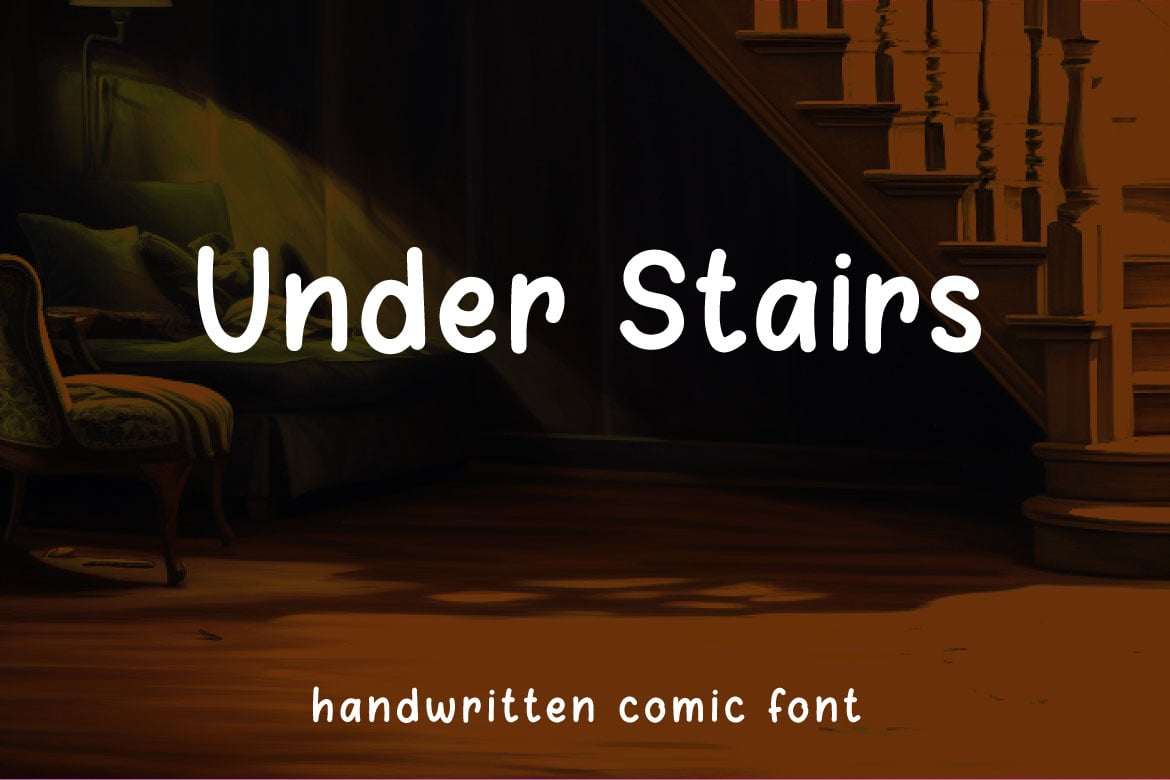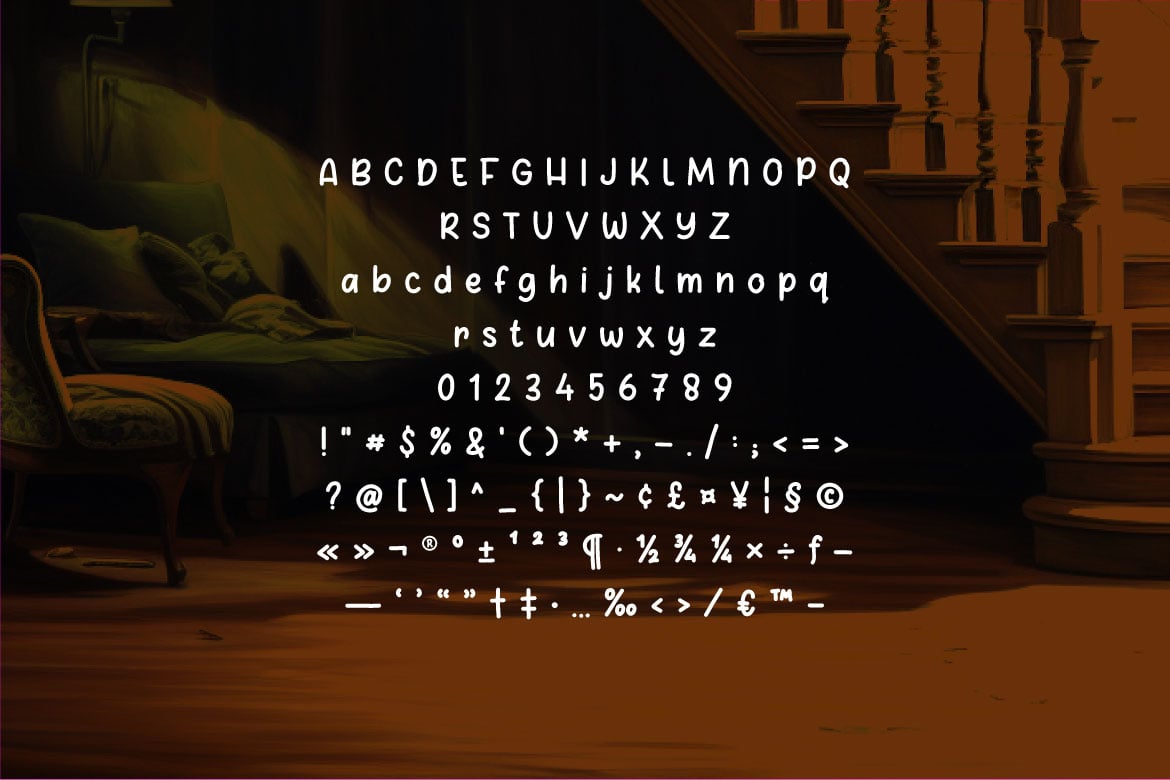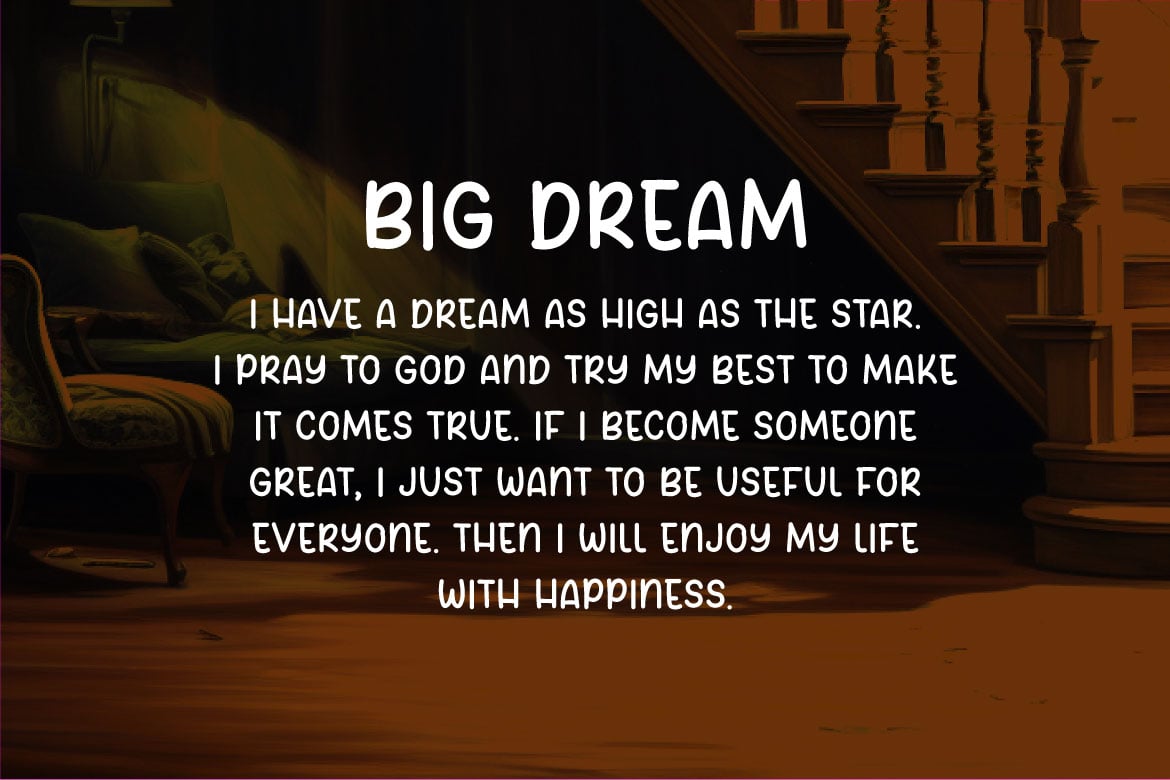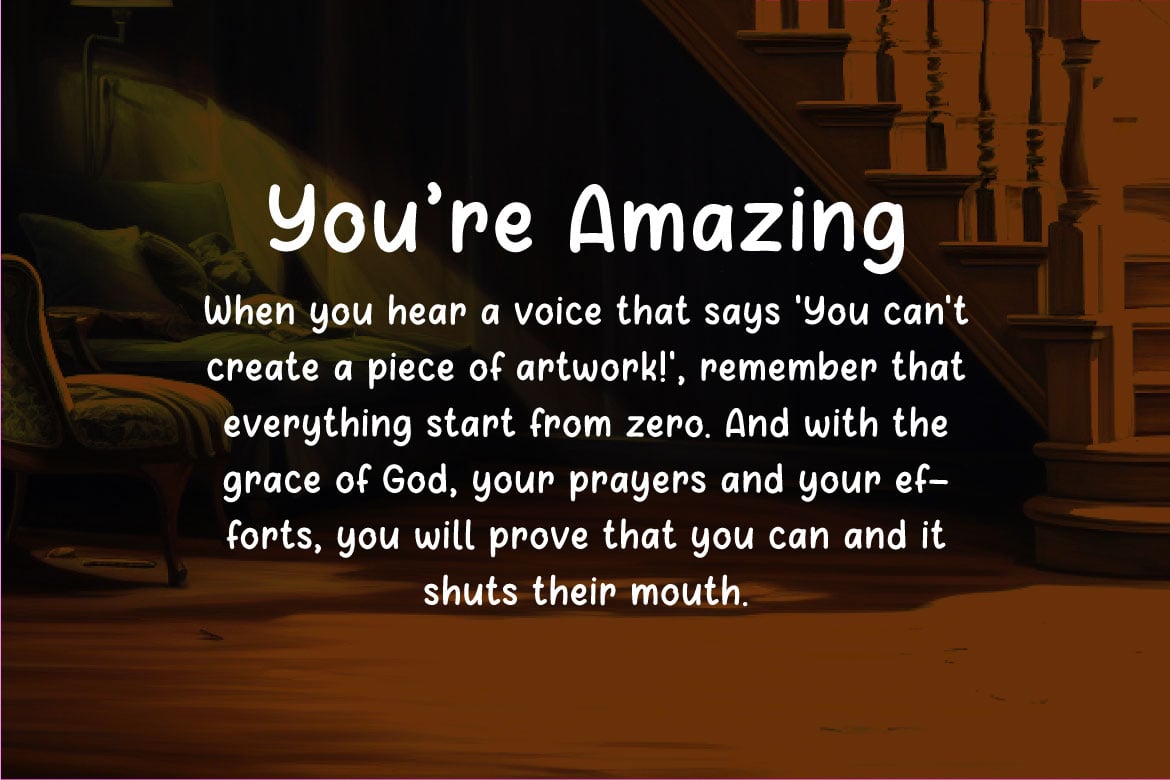
Under Stairs – Handwritten Comic Font
Hello! Under Stairs is a small handwritten font.
Under Stairs can be used in any works such as comic book, poster, school, flyer, book title, advertisement, social media content, logo and many more.